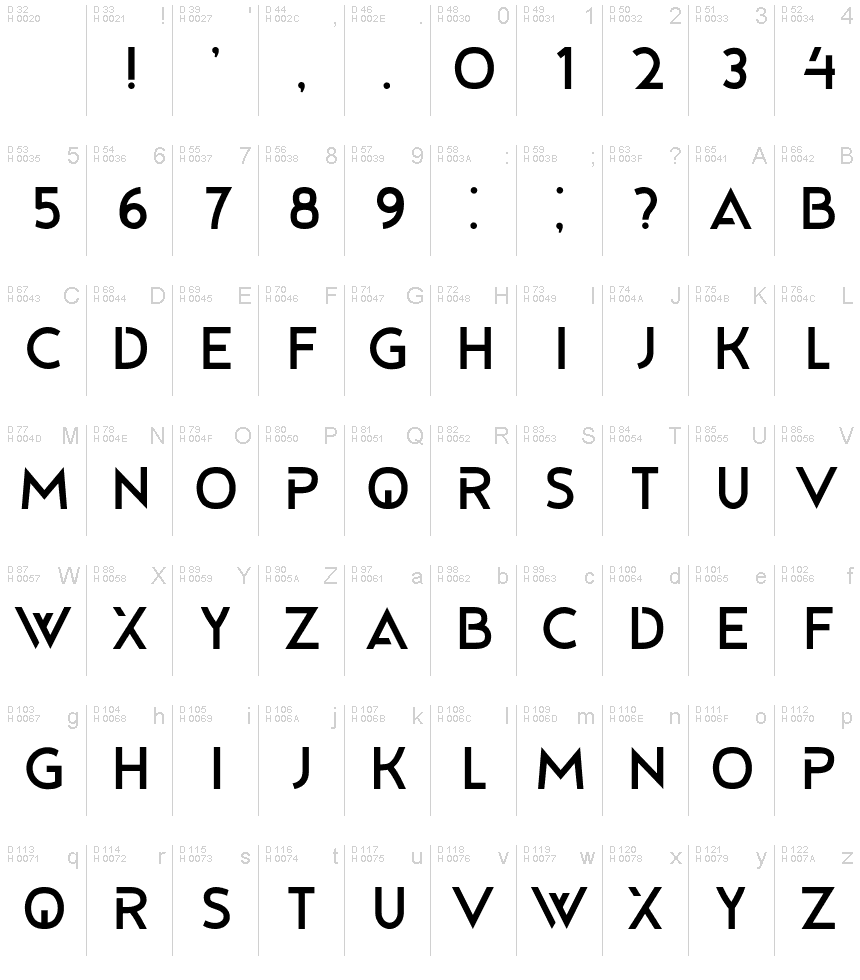
Serona Regular
Serona, designed by Vladimir Nikolic, is a captivating display font that seamlessly blends contemporary aesthetics with timeless elegance. With its clean lines and sans serif structure, Serona offers versatility for a wide range of creative projects.
Its bold font type adds impact to headlines and titles, while the regular font style delivers clarity and legibility for body text. Whether it's designing sophisticated branding materials or creating eye-catching posters, Serona is the perfect choice for bringing a touch of modern sophistication to any project.